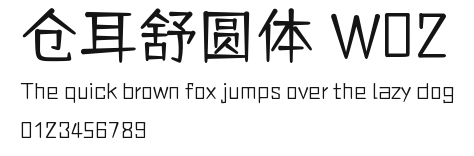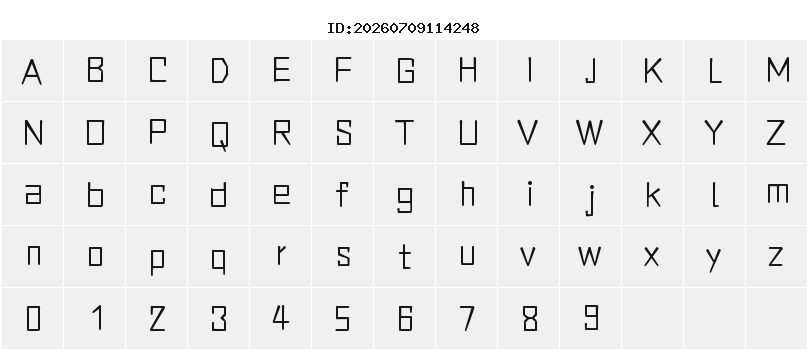
仓耳舒圆体 W02 Preview
• Font Name: 仓耳舒圆体 W02
• Full Font Name: 仓耳舒圆体 W02
• Designer: 北京仓耳文字技术有限公司
• Description: Chinese font for any system.
About 仓耳舒圆体 W02.ttf
仓耳舒圆体 W02.ttf is a modern, elegant sans-serif font designed for ultimate readability and visual harmony. Perfect for branding, headlines, web design, and print materials.